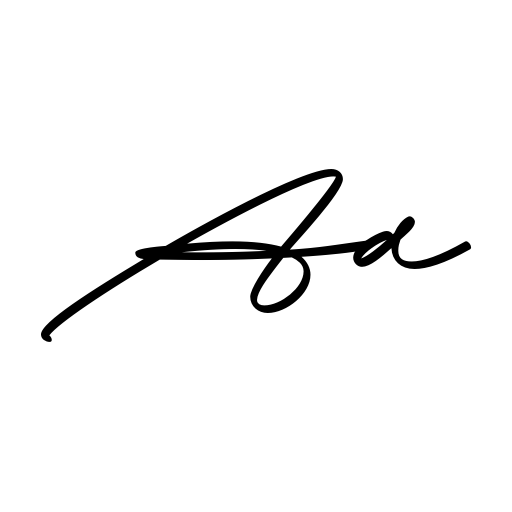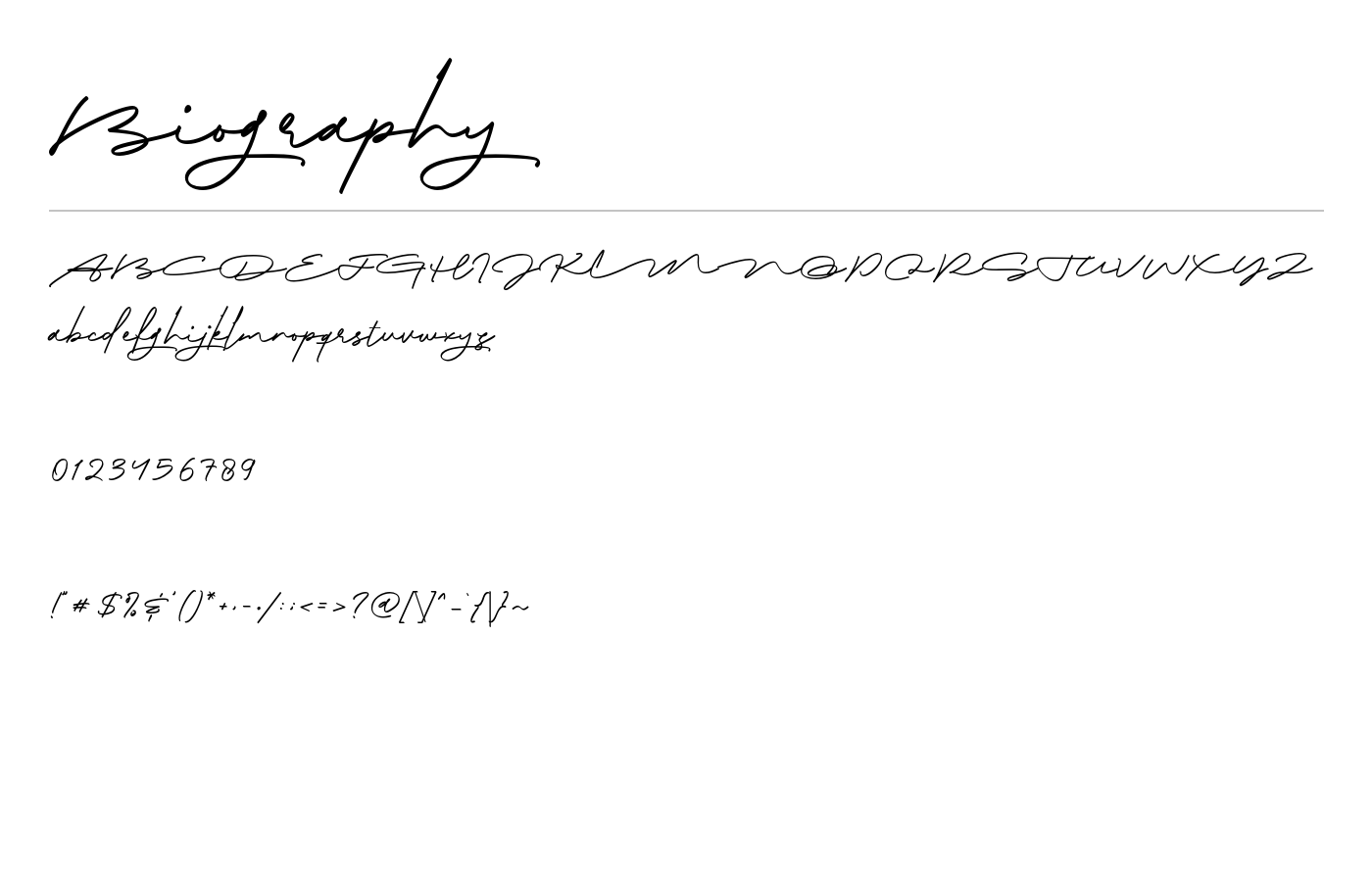
Biography Font is a delicate, handwritten script with a flowing, elegant style that mimics natural penmanship. Its slender strokes and graceful curves give it a refined yet personal feel, making it ideal for branding, invitations, and creative projects that seek a touch of sophistication and authenticity. This font works beautifully where a stylish, intimate mood is desired, especially in fashion, lifestyle, and artistic contexts.
Biography Font
About Biography Font